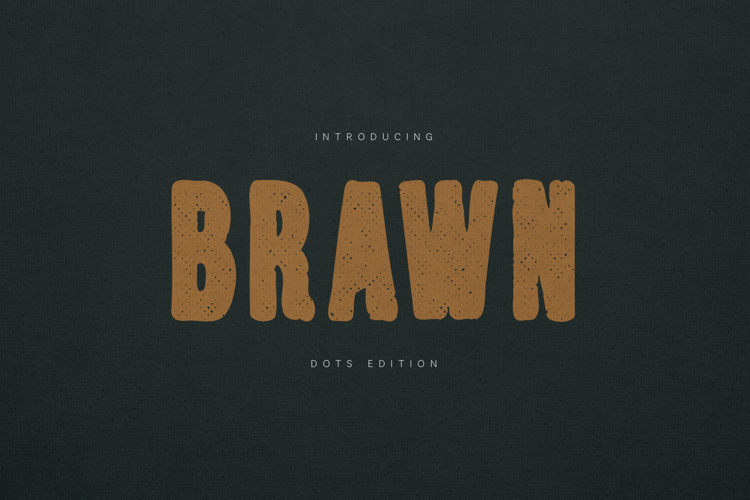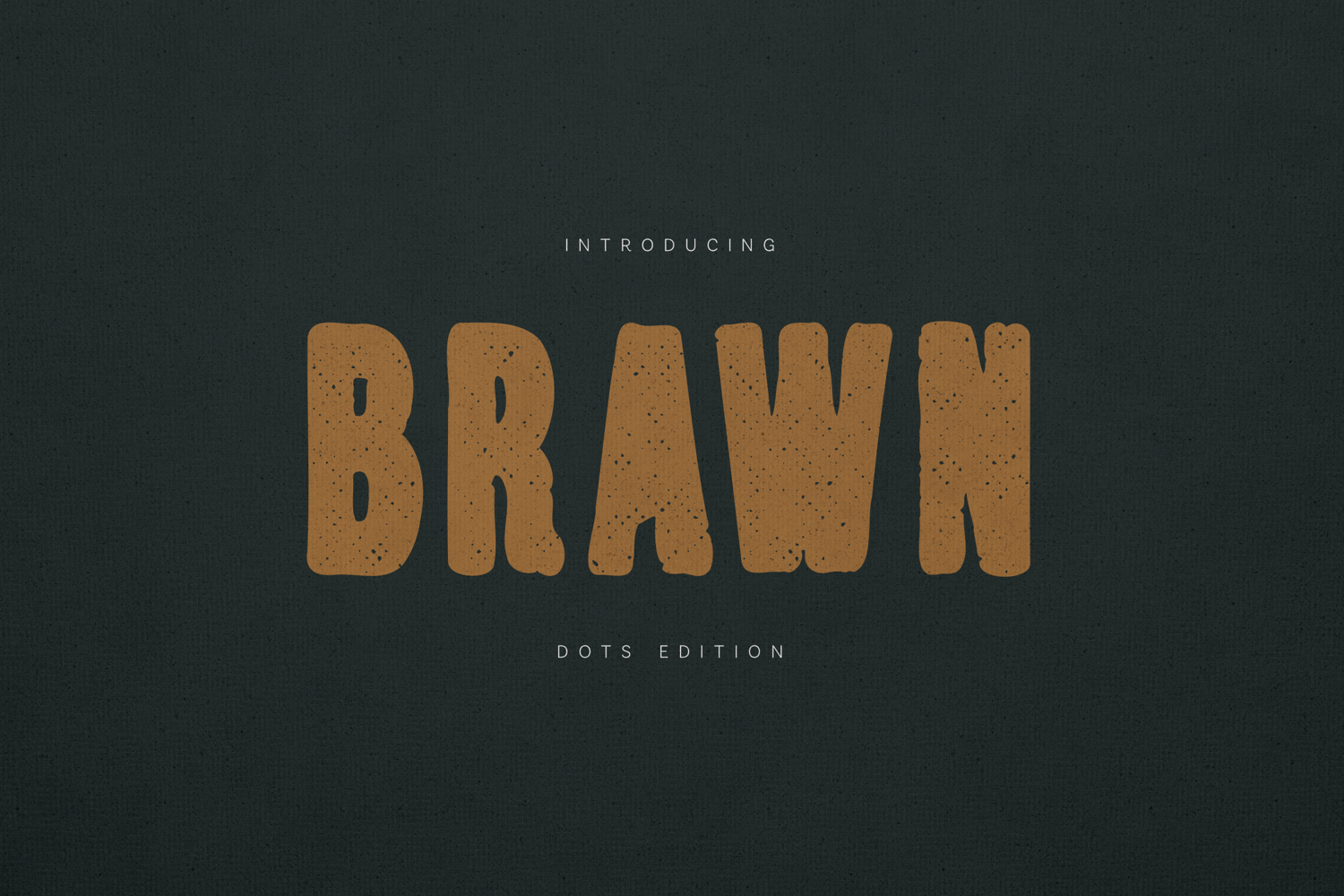
Brawn Display Font Bold Retro Distressed
Brawn is a bold, textured display typeface designed to make a strong visual impact.
With its chunky proportions, slightly irregular curves, and subtle dotted texture, Brawn delivers an authentic vintage poster aesthetic. The handcrafted feel gives it personality while maintaining clarity and legibility.
Perfect for bold headlines and branding projects that need strength, warmth, and character.
Ideal for:
• Vintage posters
• Retro branding
• Craft beer labels
• Streetwear design
• Packaging
• T-shirt graphics
• Bold logos
• Social media graphics
• Event flyers
• Dots texture style included
Brawn is confident, expressive, and unapologetically bold — built for projects that demand attention.